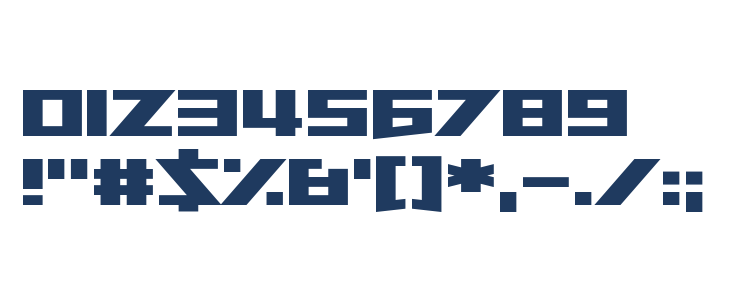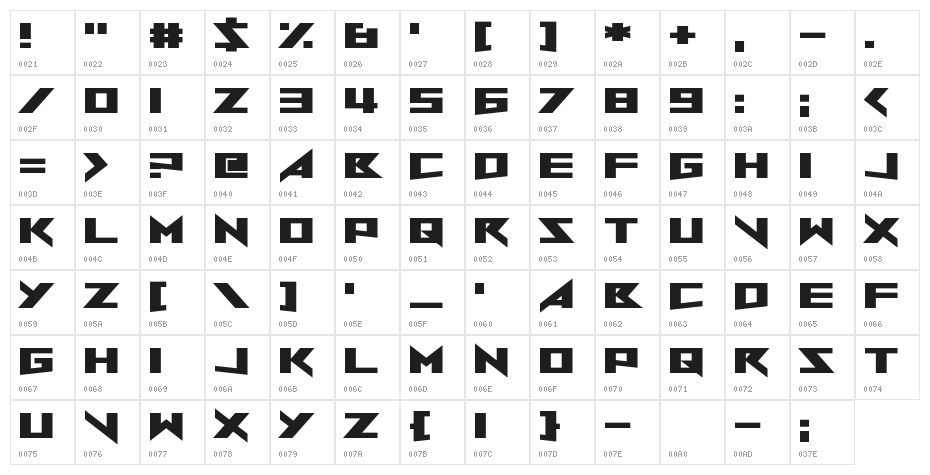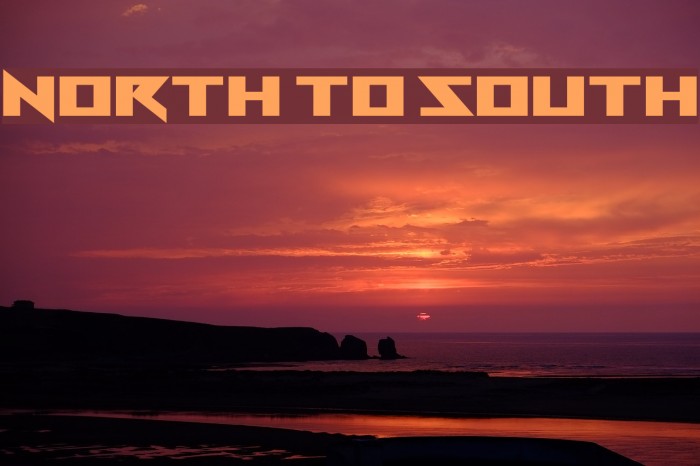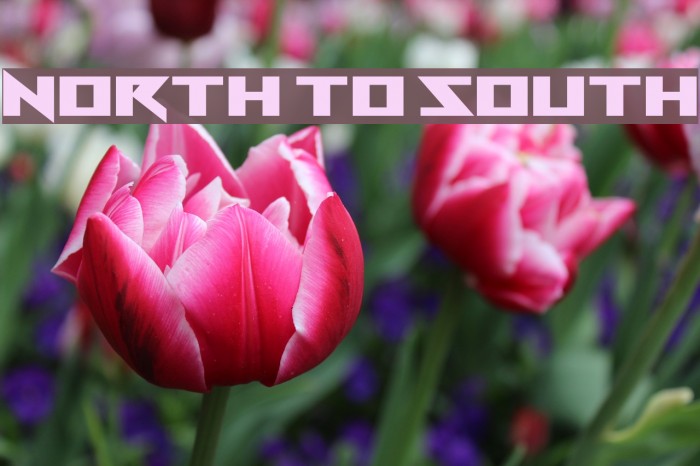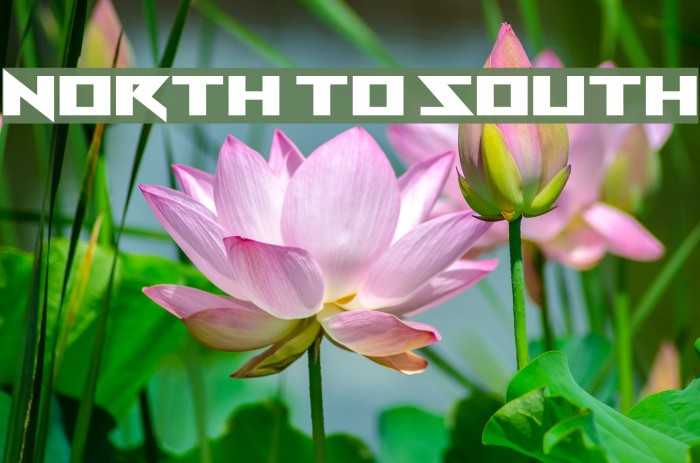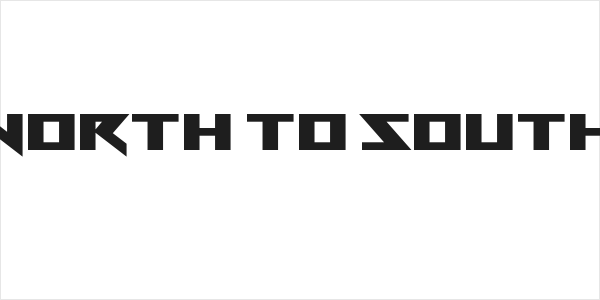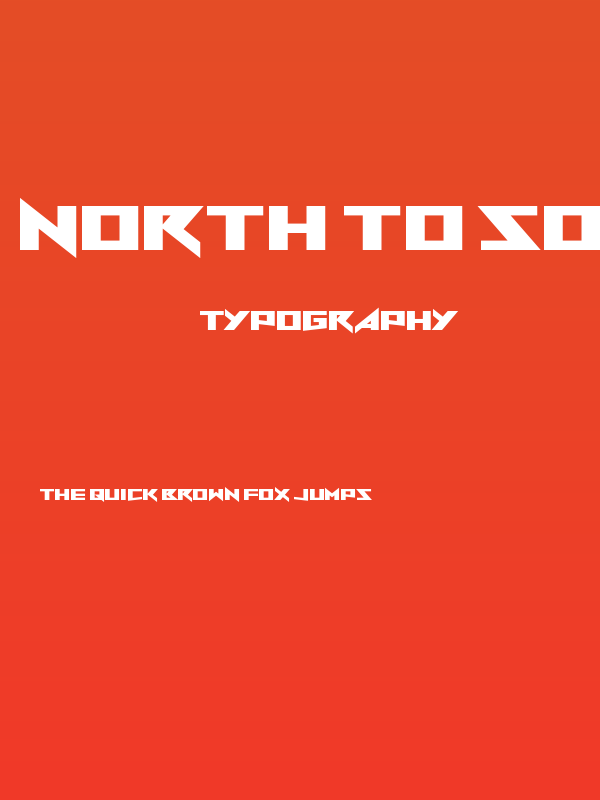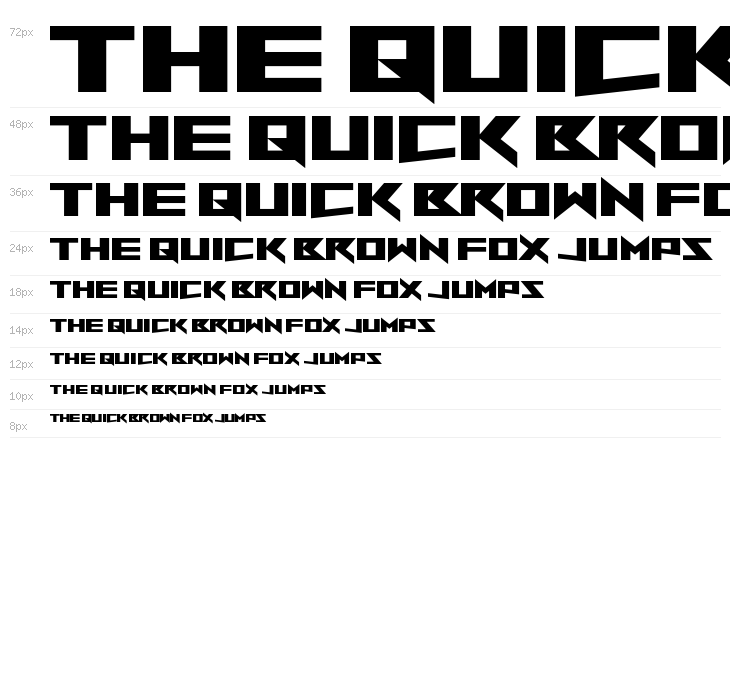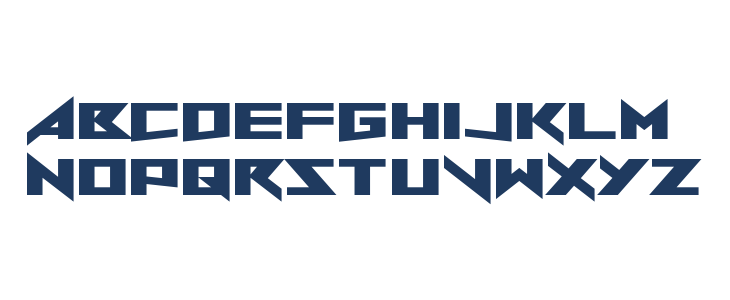
North to South Font
North to South Description
This font features a bold and angular design, characterized by sharp edges and geometric shapes. The letters have a futuristic and aggressive appearance, with a consistent thickness throughout each character. The uppercase and lowercase letters maintain a uniform style, emphasizing strong lines and a blocky structure. Numbers and special characters follow the same design principles, ensuring a cohesive look across all elements. The font's unique style makes it stand out, offering a modern and edgy aesthetic suitable for various creative applications.
| Overall Style | Futuristic, Edgy |
| Proposed Projects | Ideal for video game titles, sci-fi movie posters, tech branding, and edgy graphic design projects. |